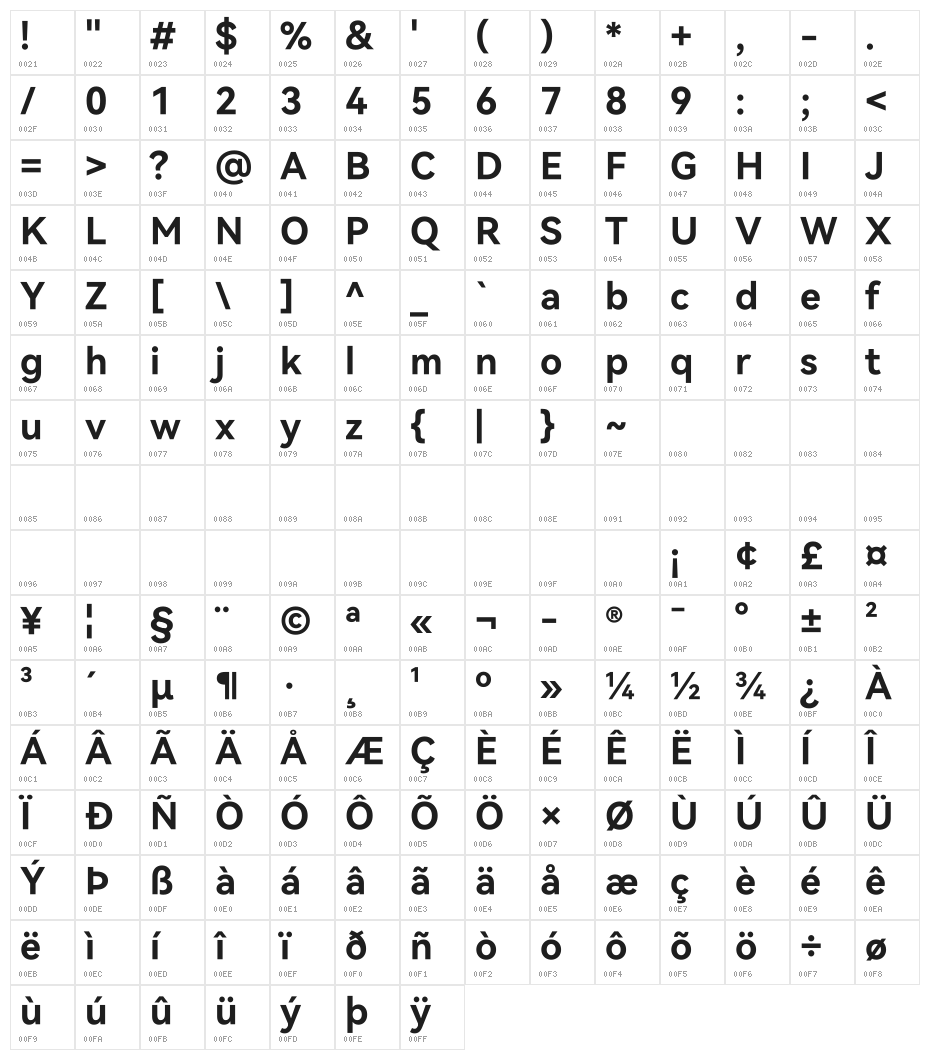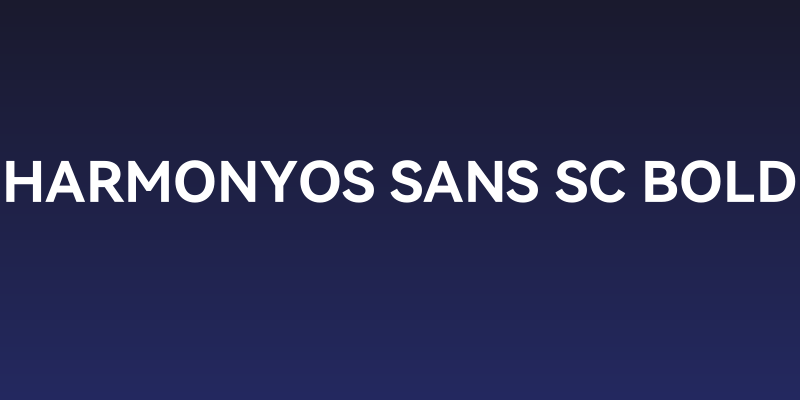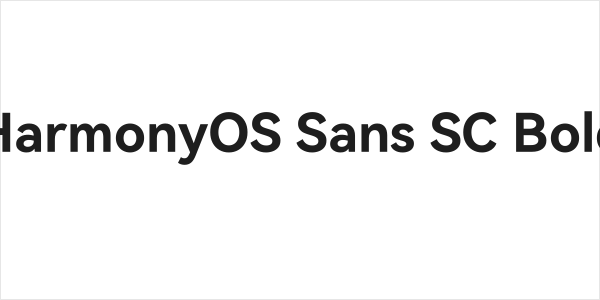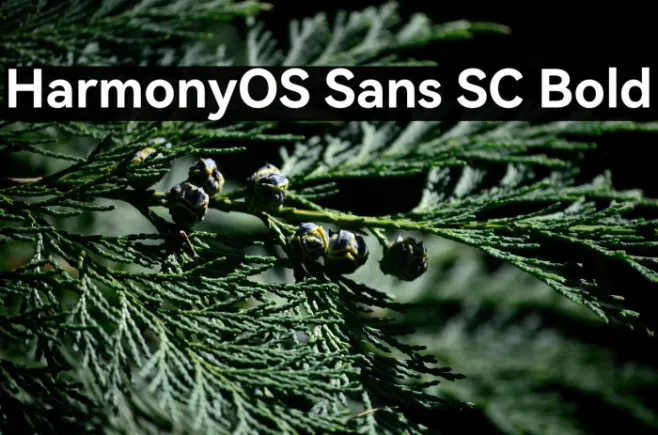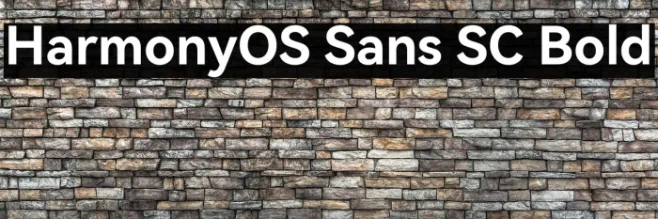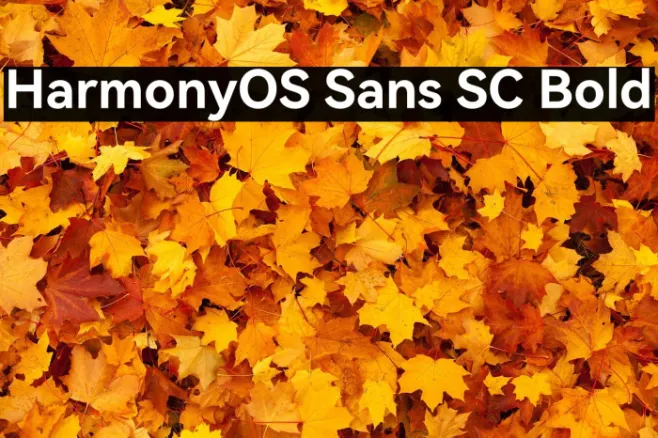
HarmonyOS Sans SC Bold Font
HarmonyOS Sans SC Bold Description
This font presents a clean and modern sans-serif style, characterized by its bold weight and uniform stroke width. The characters are well-proportioned, offering a balanced and harmonious appearance. The uppercase letters are strong and assertive, while the lowercase letters maintain a friendly and approachable feel. The numerals are clear and easy to read, making them suitable for various applications. Special characters are distinct and well-integrated into the overall design. The font's simplicity and clarity make it versatile for both digital and print media, ensuring readability across different sizes and contexts.